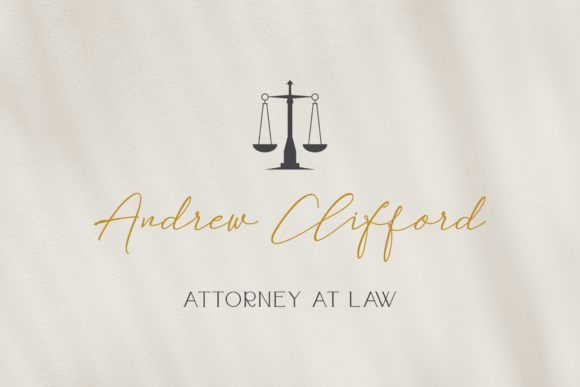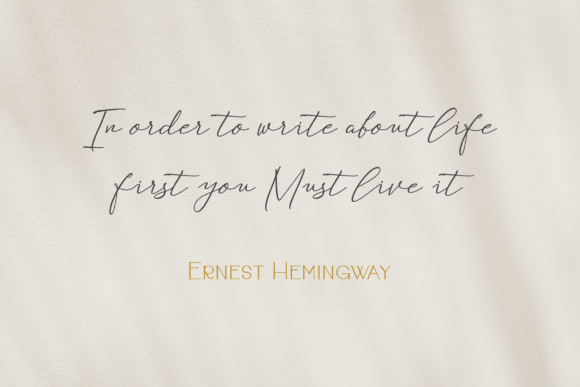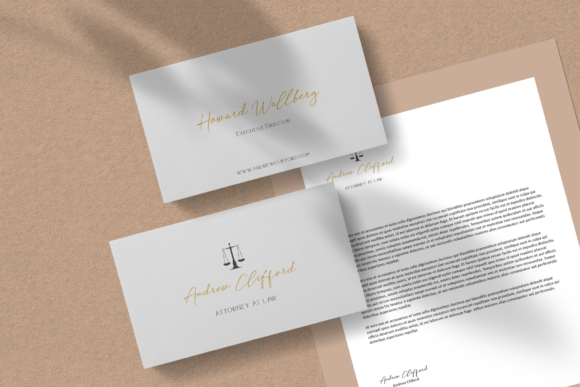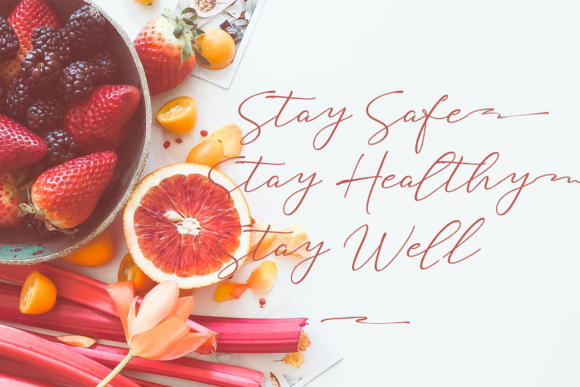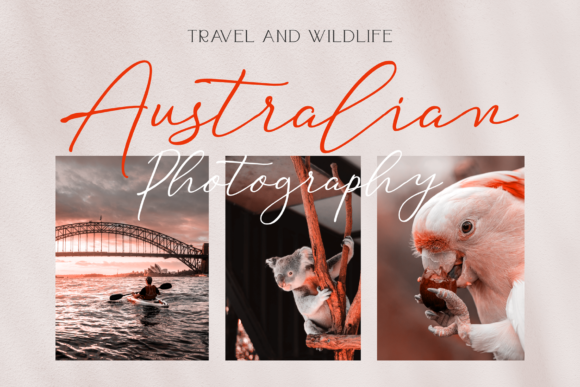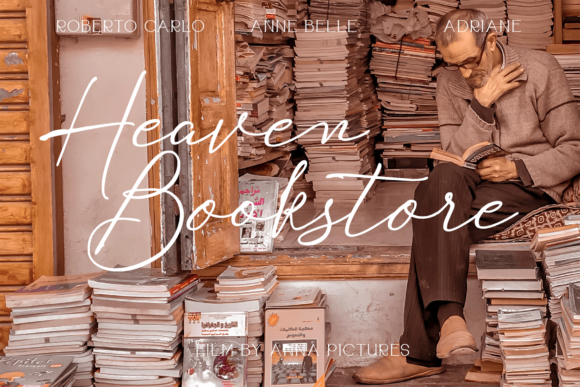
Haisley Cataleya Font: Elevate Your Designs with this Stunning Duo
In the world of typography, a good font can make all the difference in elevating your design project from ordinary to extraordinary. If you’re a designer or crafter looking for a unique and versatile font to add a touch of sophistication and friendliness to your work, look no further than the Haisley Cataleya Font. This stunning duo font, consisting of a beautiful script and a classic serif, is ideal for giving your projects a branded but approachable feel.
What is Haisley Cataleya Font?
Haisley Cataleya is a comprehensive duo font that combines two distinct styles: a lovely script font and a traditional serif font. The two included styles can be combined together perfectly, creating a harmonious and visually appealing contrast that adds depth and interest to any design project. However, they are also beautiful on their own, making them suitable for a wide range of applications.
Key Features of Haisley Cataleya Font
- Script and Serif Combination: The duo font includes both a script and a serif font, offering flexibility and versatility in your design projects.
- Branded but Friendly Feel: The Haisley Cataleya Font is designed to give your projects a branded but approachable feel, making it perfect for use in logos, branding materials, and marketing collateral.
- Highly Legible: The serif font is highly legible, making it ideal for body text, while the script font adds a touch of elegance and sophistication to headings and titles.
- Unique and Distinctive: The Haisley Cataleya Font has a unique and distinctive style that sets it apart from other fonts, ensuring your design projects stand out from the crowd.
Uses of Haisley Cataleya Font
The Haisley Cataleya Font is a versatile font that can be used in a variety of design projects, including:
- Branding and Logo Design: The duo font is perfect for creating logos and branding materials that require a unique and memorable typography.
- Marketing and Advertising: The Haisley Cataleya Font can be used in marketing collateral, such as brochures, flyers, and posters, to add a touch of sophistication and elegance.
- Web Design: The font can be used in web design to create visually appealing headings, titles, and body text that engage and convert visitors.
- Stationery and Packaging: The Haisley Cataleya Font is suitable for use in stationery and packaging design, adding a touch of personality and style to business cards, letterheads, and product labels.
Benefits of Using Haisley Cataleya Font
Using the Haisley Cataleya Font in your design projects offers several benefits, including:
- Improved Brand Recognition: The unique and distinctive style of the font helps to create a memorable brand identity that sets you apart from competitors.
- Increased Engagement: The elegant and sophisticated style of the font engages and converts visitors, making it perfect for use in marketing and advertising materials.
- Flexibility and Versatility: The duo font can be used in a variety of design projects, making it a valuable addition to any designer’s font library.
| Font Name | Haisley Cataleya Font |
| Author | RT Studio |
In conclusion, the Haisley Cataleya Font is a stunning and comprehensive duo font that offers a unique and versatile solution for designers and crafters looking to elevate their design projects. With its script and serif combination, branded but friendly feel, and highly legible design, this font is perfect for use in a wide range of applications. Whether you’re creating logos, branding materials, marketing collateral, or web design elements, the Haisley Cataleya Font is sure to make a lasting impression.